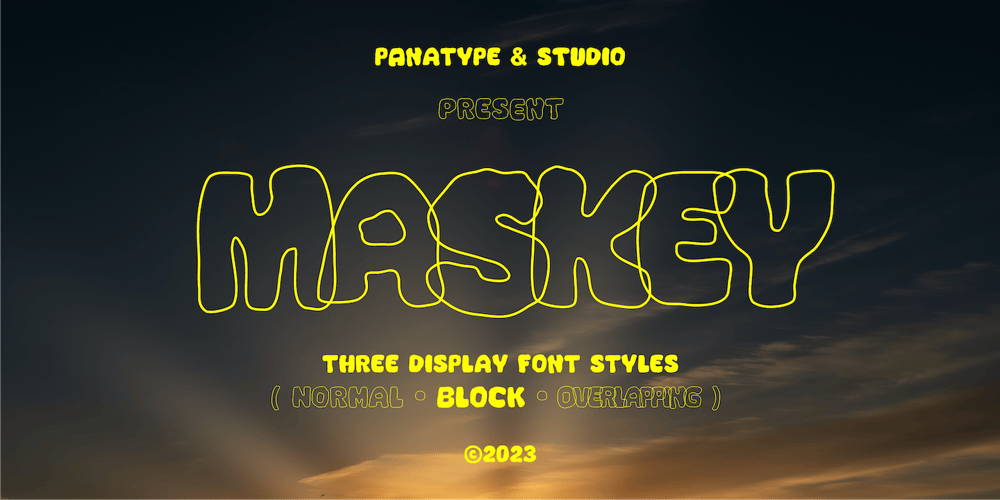
Maskey Font Family was designed by Ajusia and published by Panatype Studio. Maskey contains 3 styles and family package options. MASKEY is a rough typeface with a freehand writing style, comes with 3 family styles (Normal, Overlapping, and Block) which are perfect for your designs that want a rough, modern vintage, freestyle style, and carefully crafted for all graphic design needs.Following Language Support :LATIN EXTENDED ( Western European, Central European, South Eastern European )Thank You